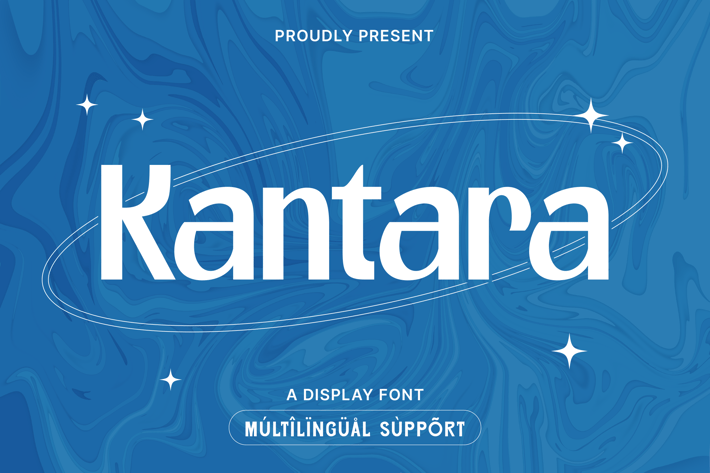
Kantara - A Display Font
Kantara is a bold and captivating display font designed to make an impact. With its strong, attention-grabbing letterforms and modern styling, Kantara is perfect for headlines, posters, logos, and branding projects that need a striking visual presence. Its distinctive design and versatility make it ideal for a wide range of creative applications, from editorial layouts to digital content. Kantara brings a sense of power and clarity to your work, ensuring that your message stands out in any context.
– Lowercase
– Ligature
– Multilingual Support
– Lowercase
– Ligature
– Multilingual Support